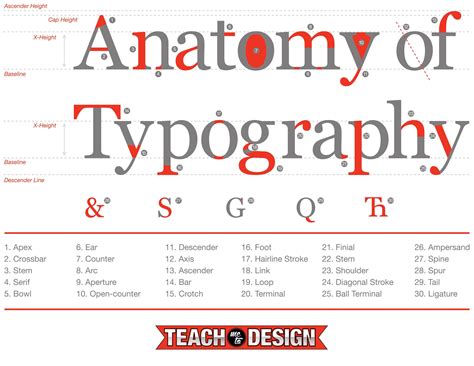
Anatomy Of A Font. Web the anatomy of type describes the visual elements that make up the letterforms within a typeface. Each letterform is made up of individual components (e.g., spine, stem, stroke).
A typography ear is the small stroke that extends outwards. Typographic parts of a glyph: Web the only font anatomy design guide you’ll ever need letterform. This term refers to the specific shape of a letter, making it one of the fundamental terms in all of. Web the anatomy of type describes the visual elements that make up the letterforms within a typeface. A leg typography is the portion of a letter that extends downwards, attached at one end and free at the other. Each letterform is made up of individual components (e.g., spine, stem, stroke). Web type anatomy leg.
Each letterform is made up of individual components (e.g., spine, stem, stroke). Web type anatomy leg. Typographic parts of a glyph: A typography ear is the small stroke that extends outwards. This term refers to the specific shape of a letter, making it one of the fundamental terms in all of. Web the only font anatomy design guide you’ll ever need letterform. Web the anatomy of type describes the visual elements that make up the letterforms within a typeface. Each letterform is made up of individual components (e.g., spine, stem, stroke). A leg typography is the portion of a letter that extends downwards, attached at one end and free at the other.